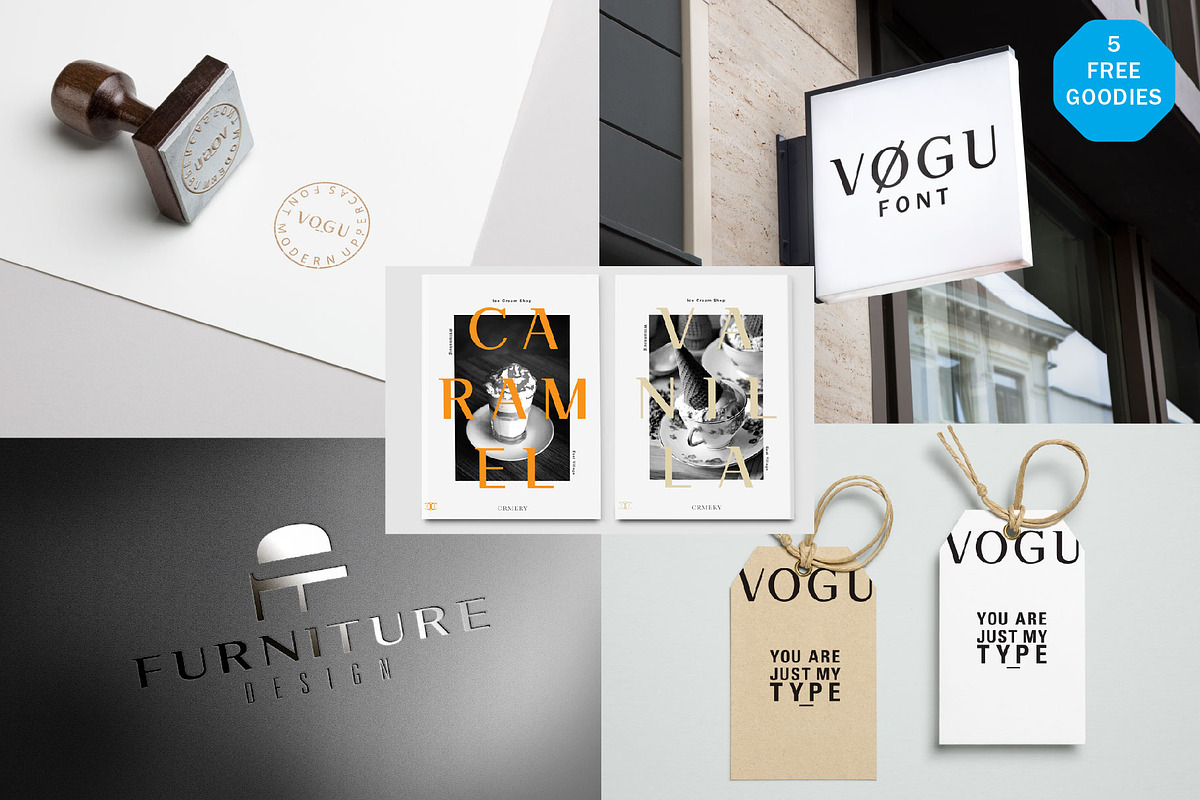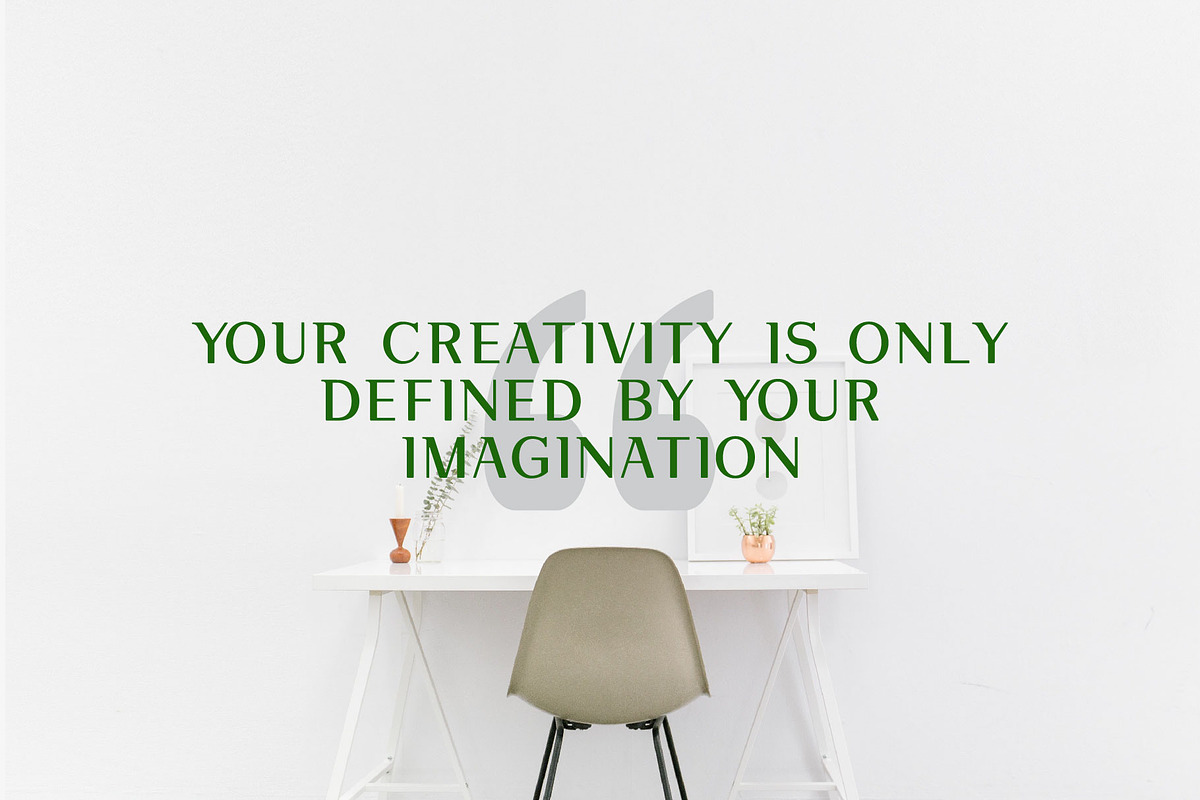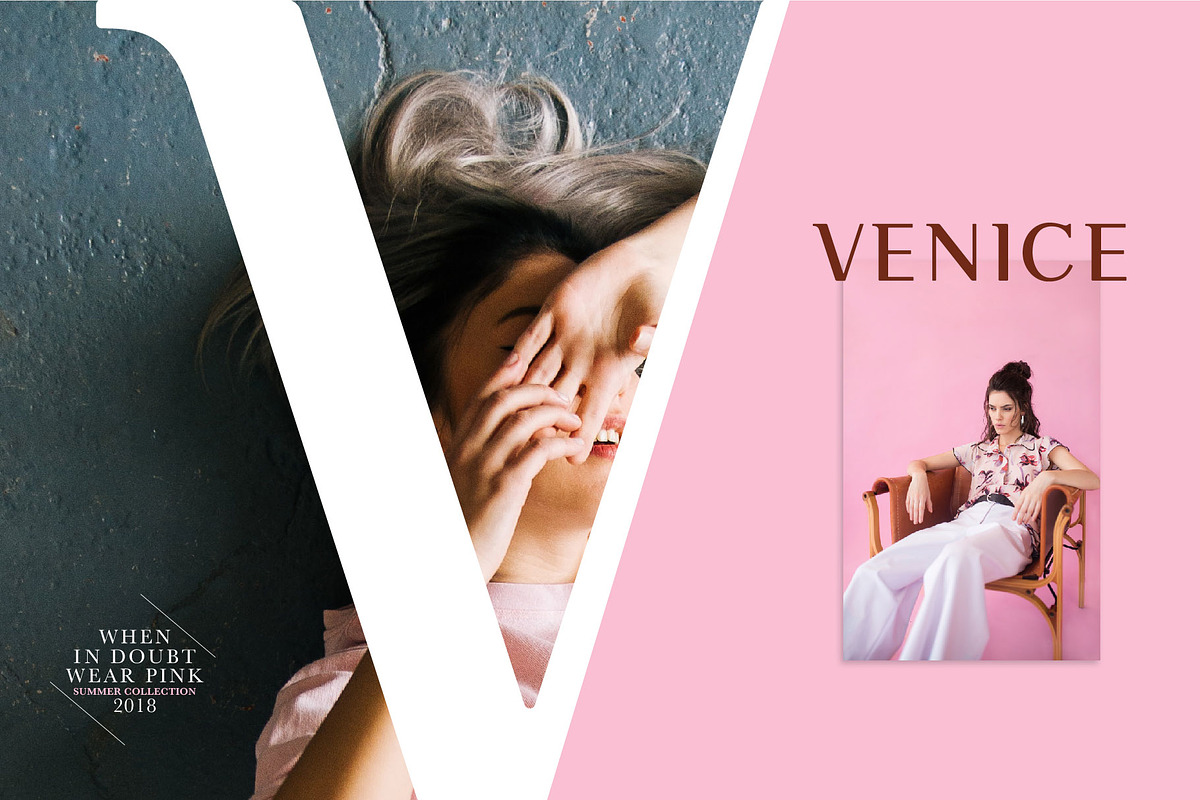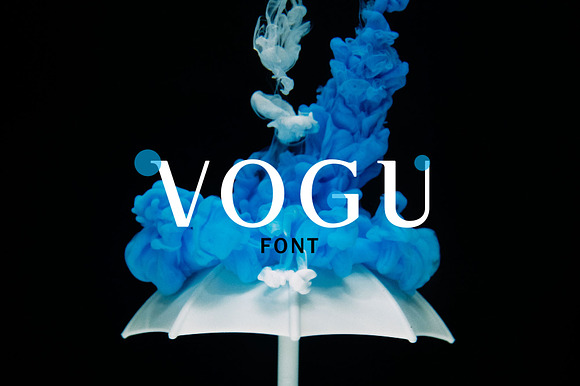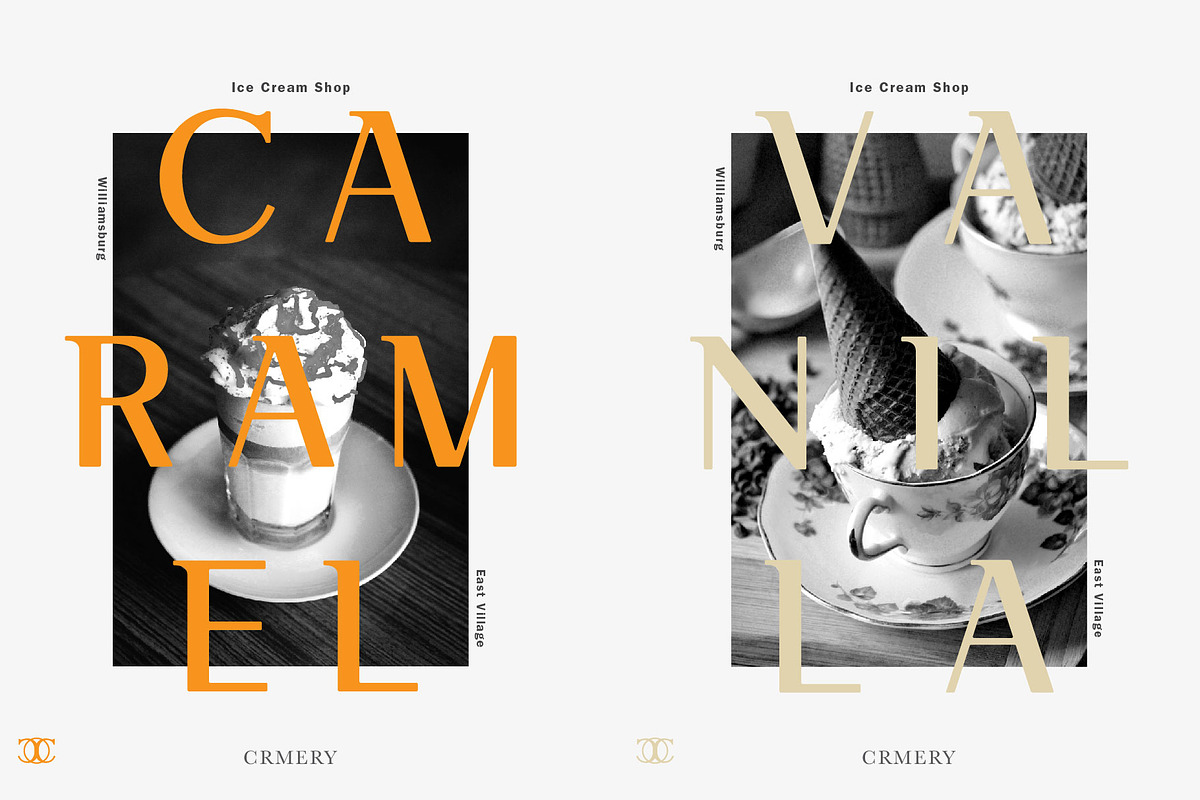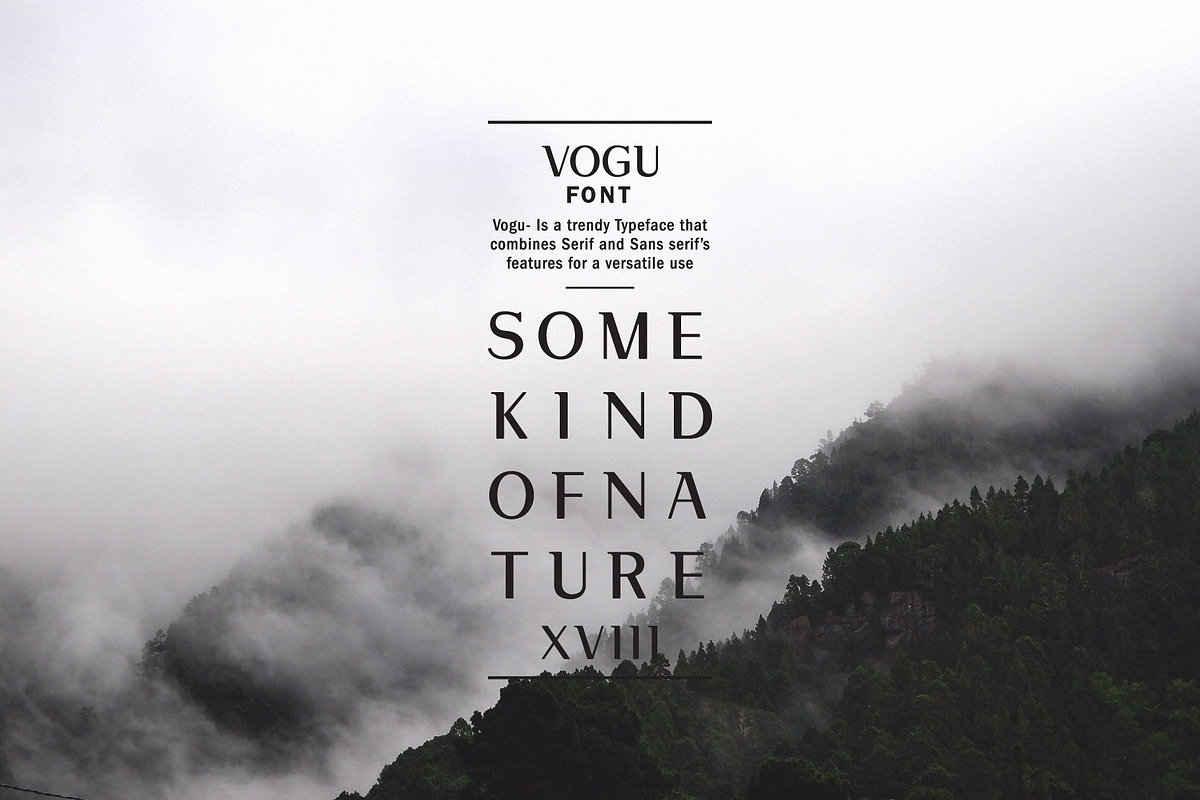
Vogu-Font | With 5 Free Mockups
VOGU - Is A Trendy Typeface That Combines Serif & Sans Serif’s Features For A Versatile Use.
Made to create appealing titles, Vogu packs a full set of uppercase & basic punctuation. It can be used in various types of applications, posters, editorial content, events, logo designs, etc. VOGU was made to stand out from the crowd. Plus, I included 5 curated mockups that work great with Vogu's versatility.
Remember Your Ideas Are Only Defined By Your Imagination.